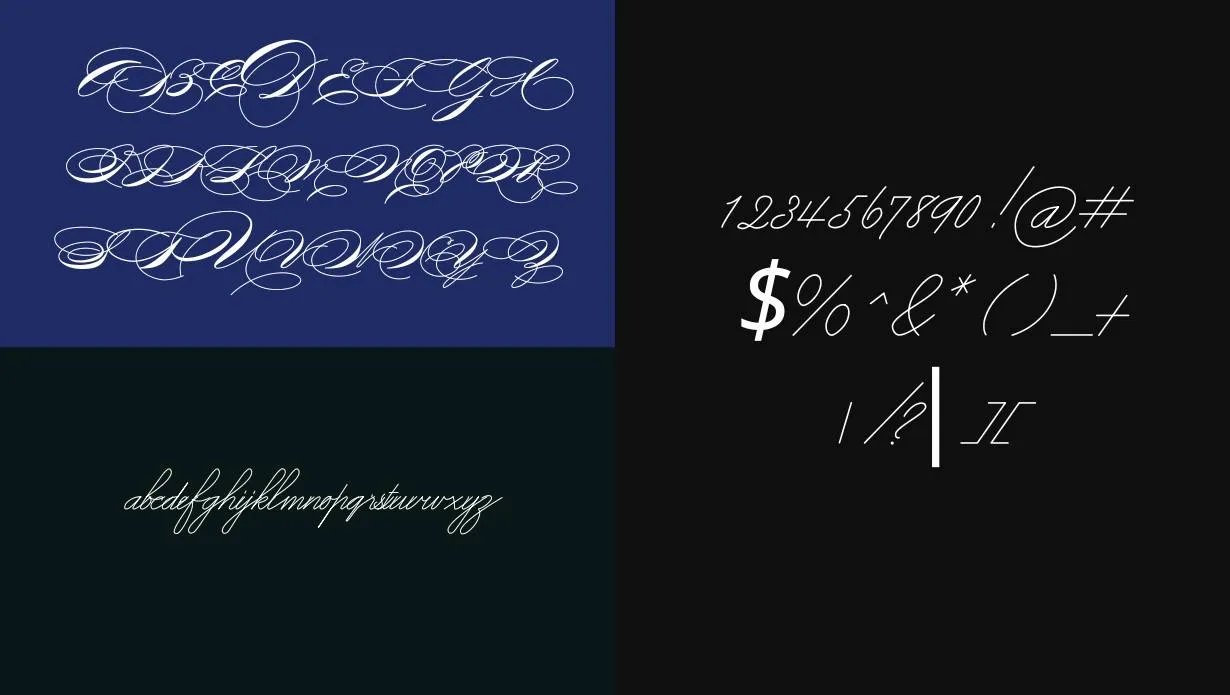
Mike Ferrari Font is a calligraphy font. It was designed by Mike Ferrari. It has a very attractive and stylish stroke. The writing style followed by this font is Italic. The weight of the font is Light and its width is Semi-expanded. Unicode supported 2.0 and BMP only.
Mike Ferrari Font Family